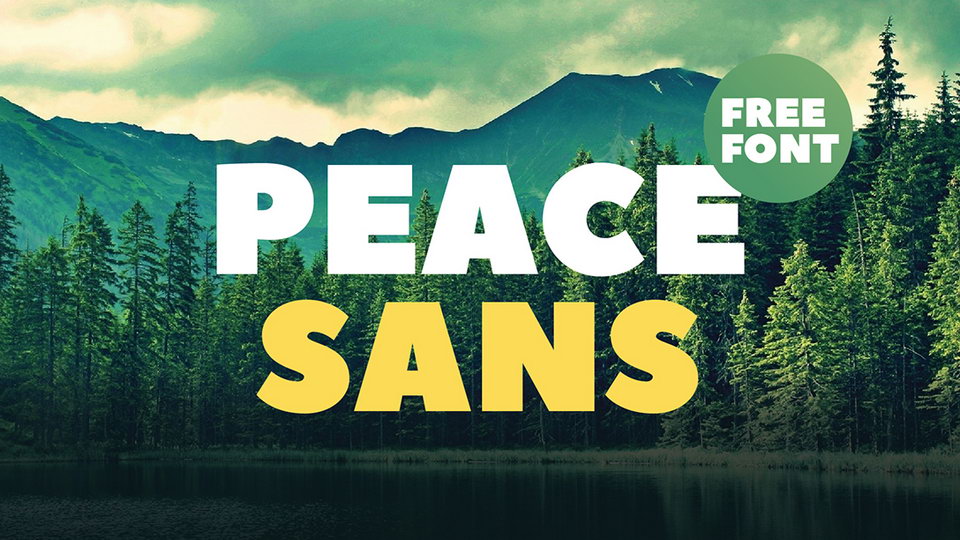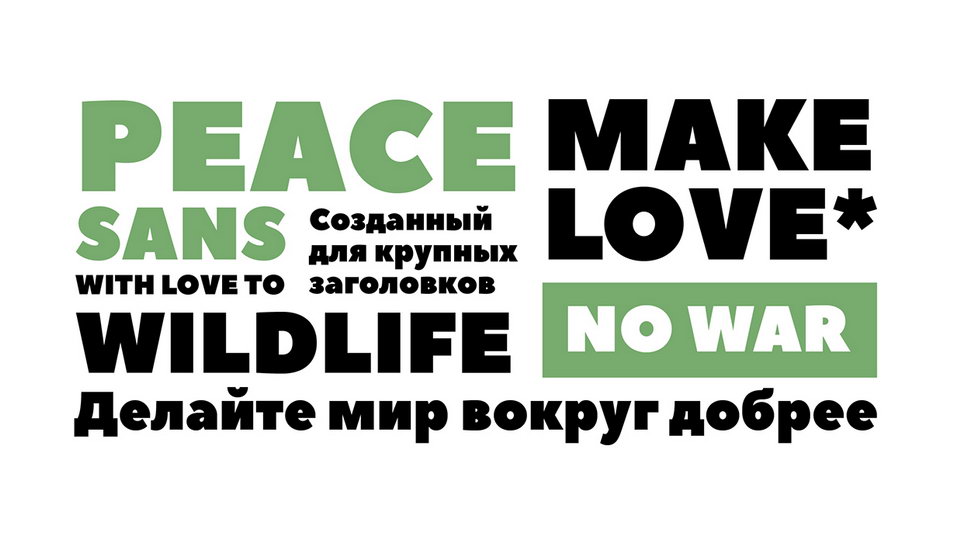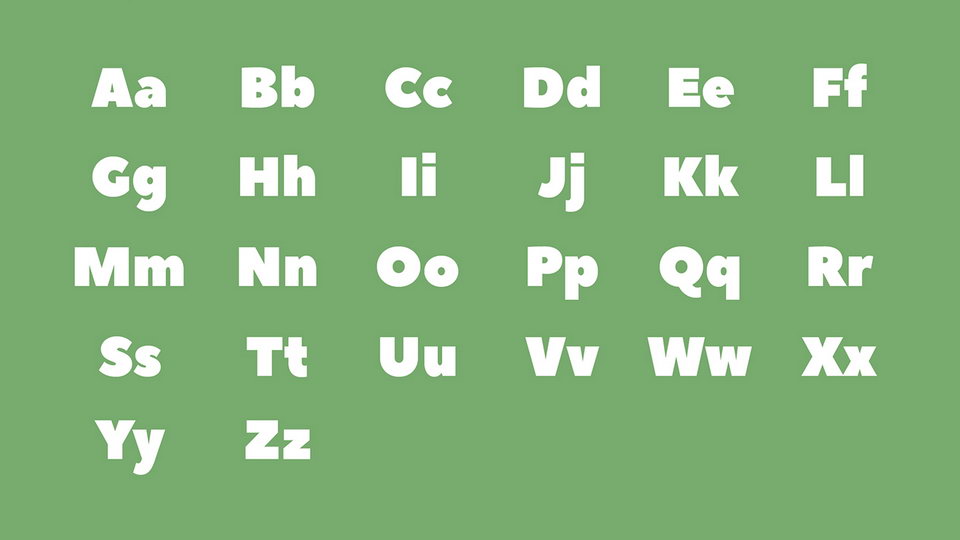
Peace Sans is a bold font made with love. It comes with full set of glyphs, including extended language support.
Peace Sans is ideal for an attractive headlines, banners, branding identity and logotypes. This font is ideal for emphasizing a message.